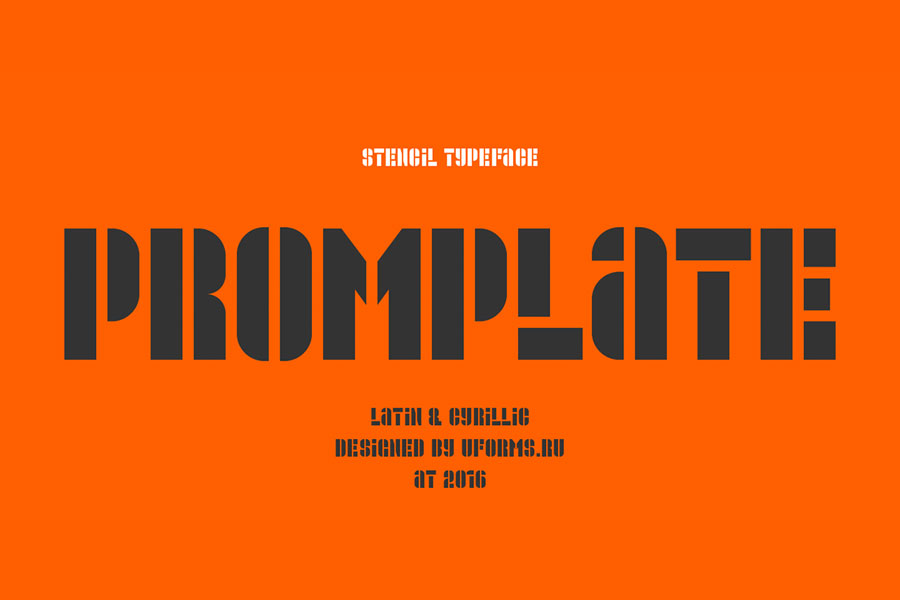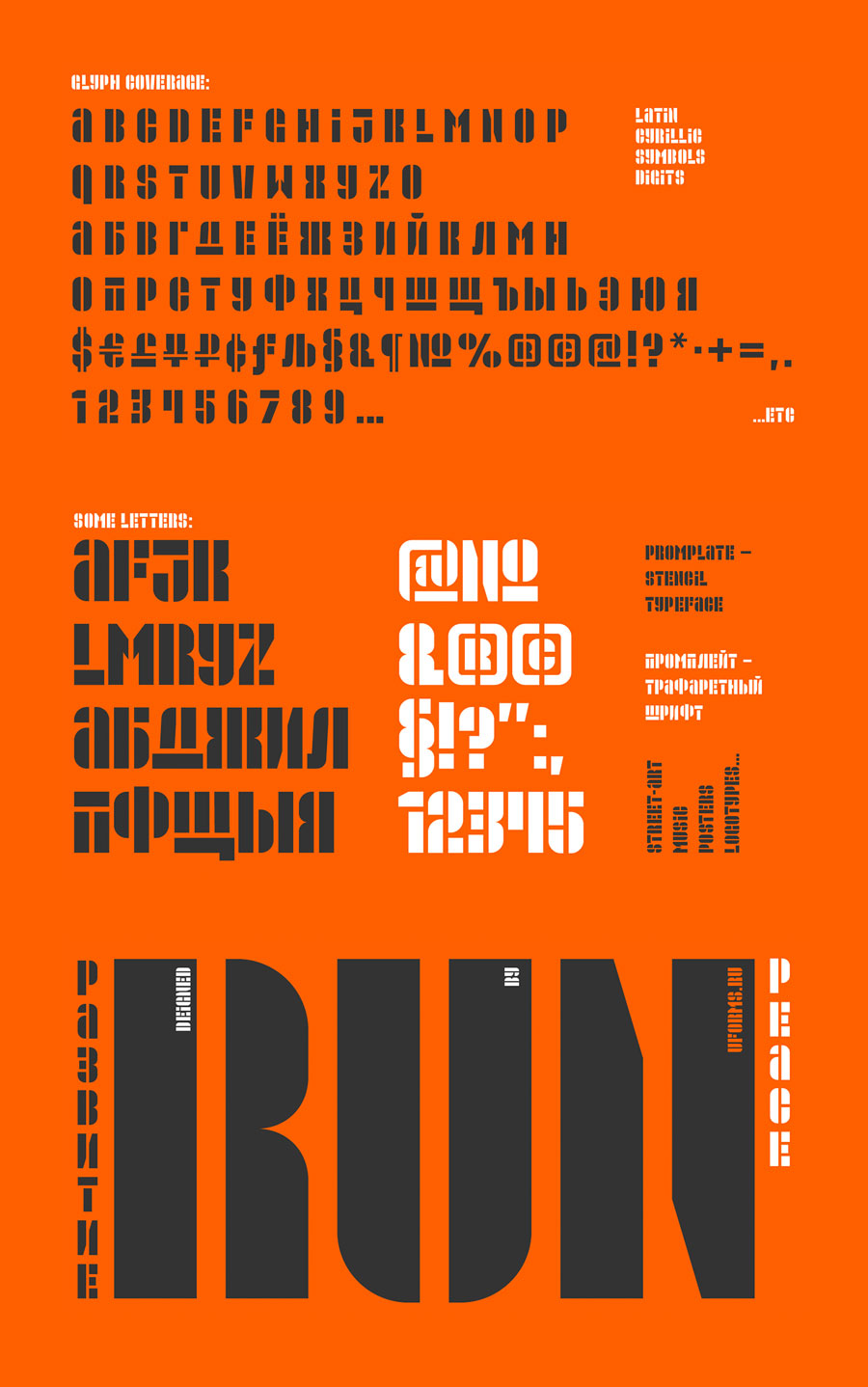
Promplate is a bold, in-your-face stencil font that is free to download. I like the way the designer combines the lowercases and uppercases together. The characters are slightly hard to read, but it would make a great display font for posters for music live events, or as decorative displays for urban street apparel shop. The font supports latin and cyrillic characters.
- Designer: Evgeny Tarasenko